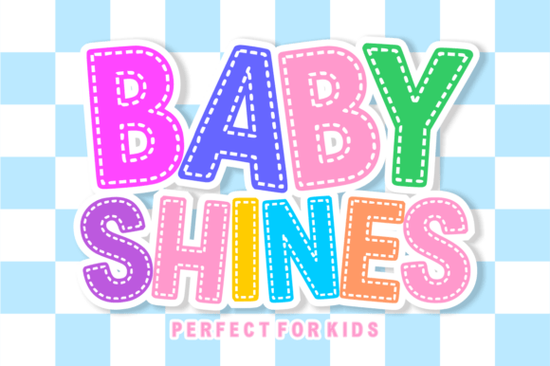
If you are looking for a typeface that adds a soft, handcrafted feel to your children's projects, the Baby Shines Font is a fantastic choice. This chunky bubble style features rounded edges and a unique stitched-line detail inside every letter. It is highly legible and cuts cleanly, making it a favorite among crafters and print-on-demand sellers who need reliable typography for nursery decor.
How does the stitched detail change your crafting projects?
The built-in dashed lines make this typeface stand out from standard bubble styles. Instead of a solid fill, the letters look sewn with thread, giving your designs an instant DIY vibe without extra layers. When you use Baby Shines Font for fabric-based items like custom onesies, that embroidered illusion adds a charming feel that customers love.
Will it cut cleanly on my vinyl machine?
A major frustration for vinyl crafters is dealing with typefaces that have fragile inner pieces. This style is optimized for cutting machines. The bold silhouette ensures every letter holds its shape when weeded. Whether using a Cricut or Silhouette, the smooth outlines mean less time fixing torn vinyl. If you need a similar clean-cutting style but want a different vibe, explore classic 70s bubble lettering for vintage-themed decor.
Why is readability important for children's products?
When designing for early learners, typography must be clear. Overly stylized letters can confuse kids learning the alphabet. The heavy, rounded shapes mimic how letters are taught in preschool. Teachers appreciate this clarity, making it excellent for educational flashcards and reading corner signs. The stitched detail adds visual texture without compromising the basic alphabet structure.
What types of products sell best with this typography?
Because the lettering is readable and playful, it works across many products:
- Nursery Decor: Personalized wooden name signs and growth charts.
- Kids’ Apparel: T-shirts and baby onesies for birthdays.
- Educational Materials: Classroom posters and student name tags.
- Party Supplies: Birthday invitations and cake toppers.
You can mix this chunky style with a magical rainbow typeface for unicorn themes, or pair it with a funky 70s aesthetic for trendy clothing.
Can I use it for minimalist designs?
While bright colors look great, the bold outlines work perfectly in solid black or white. A monochrome design looks chic on minimalist baby shower invitations. It provides enough visual interest on its own. For a masculine nursery theme, contrast it with a dark vintage typeface for secondary text, or use a woodland nature display font for outdoor announcements.
Quick Tips for Getting the Best Results